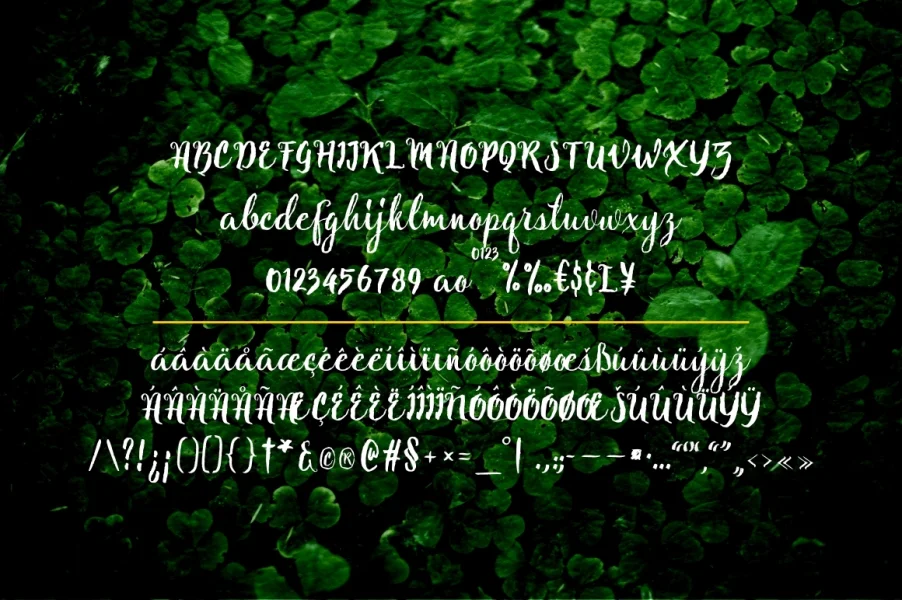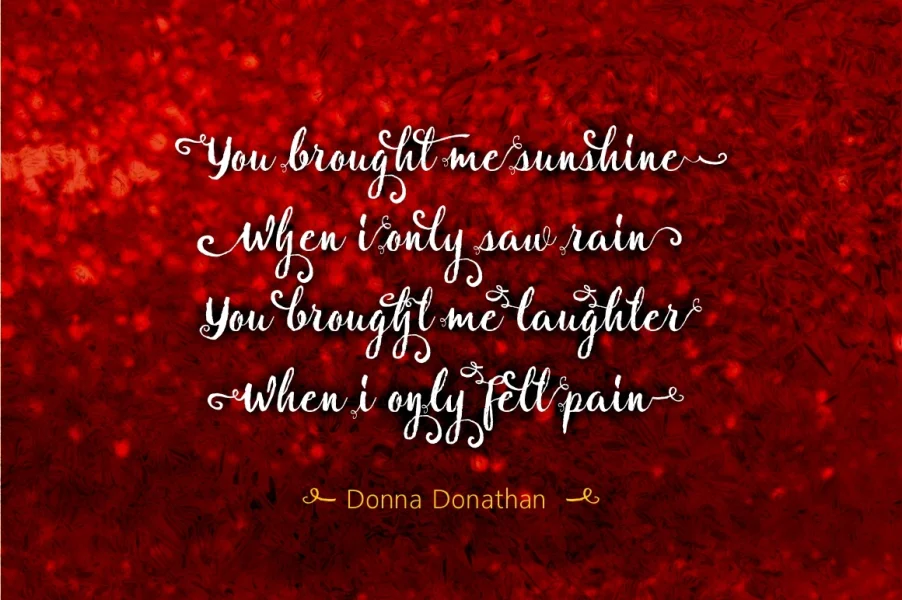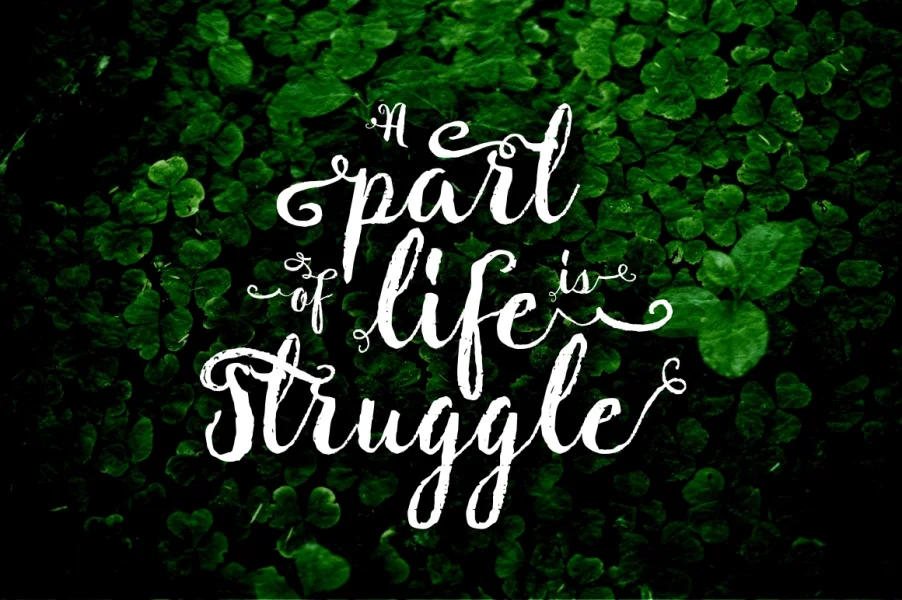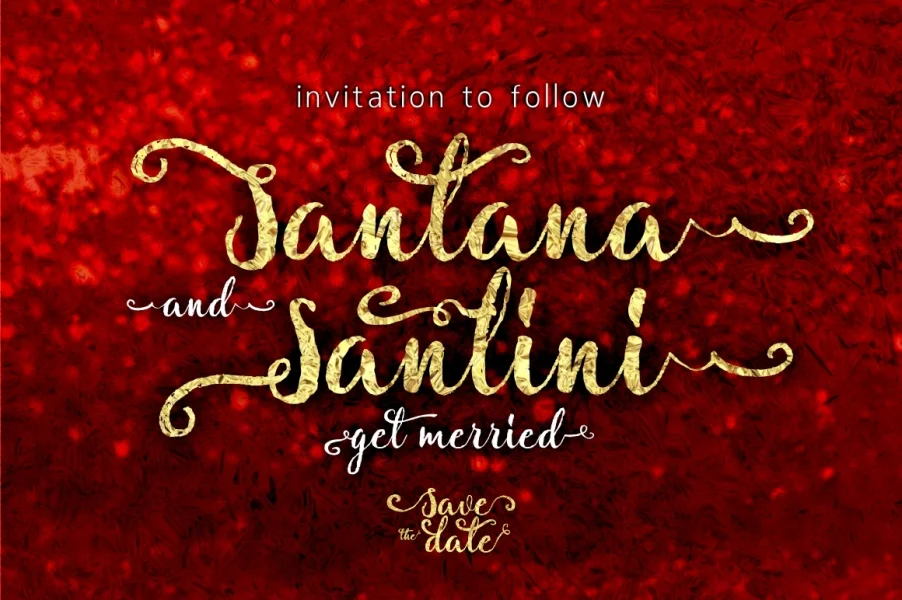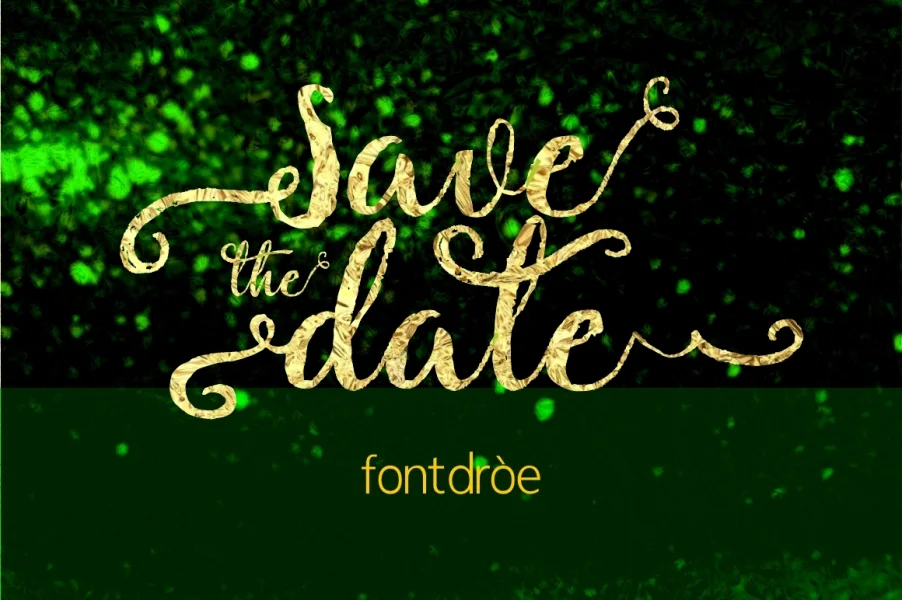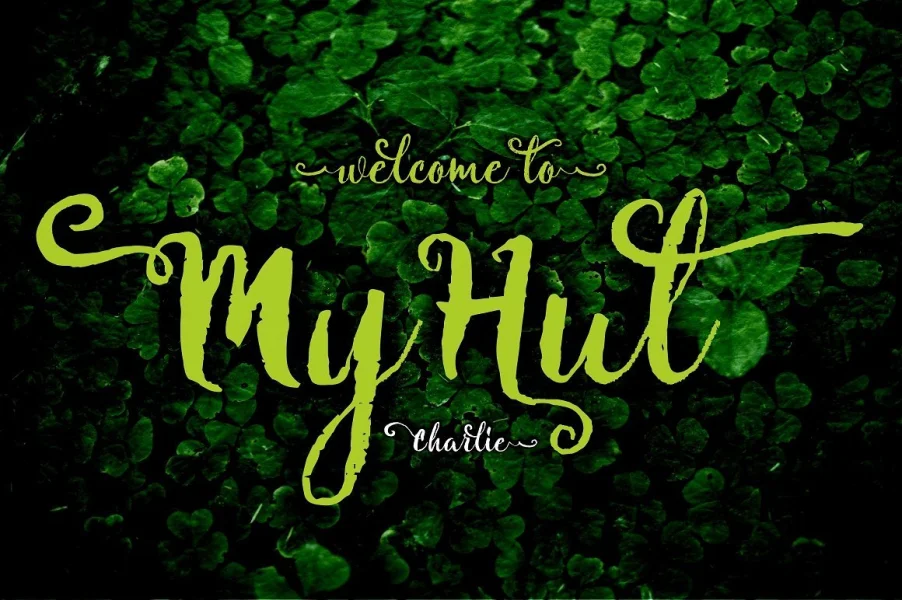
Natural is a new variant of handmade script typeface, a present to you to complete your collection of script fonts. This typeface has been enriched with additional alternate characters, up to 630 glyphs. I do hope to helpfully catch any design soul. Finally, no word to say than "Go success and enjoy it".
Feature: Alternate Char Ligature Multilanguage supported